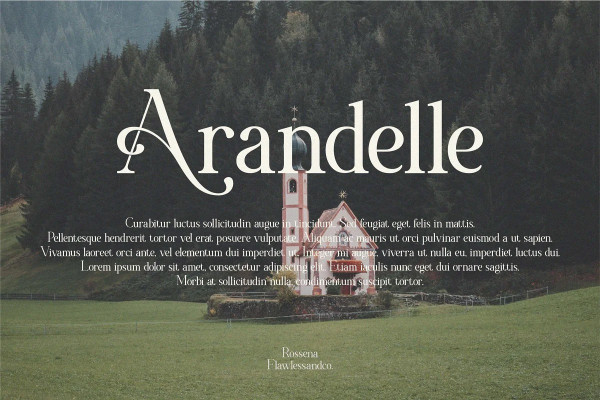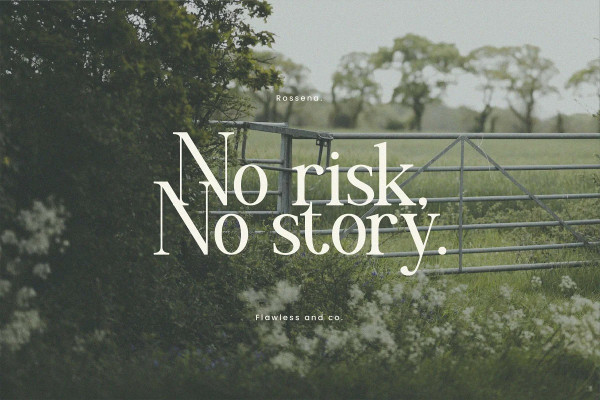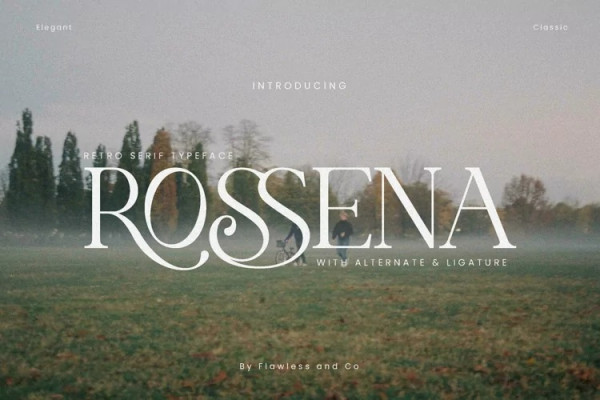
Rossena Font
Rossena Font – Retro Serif Font with alternate and ligature, Rossena is a modern retro serif font that features unique alternate and ligature characters. Its stylish design is perfect for creating a classic and contemporary feel in your projects. With support for multiple languages, Rossena is ideal for headlines, logos, and other branding materials.